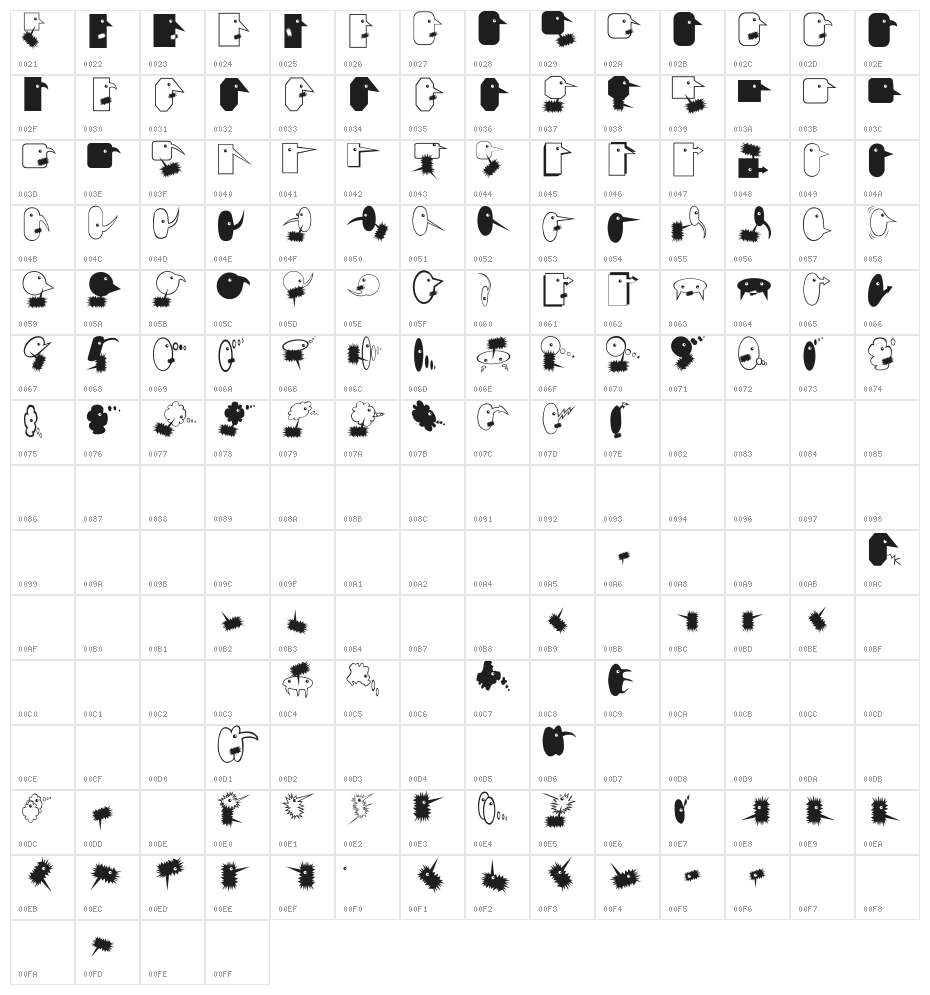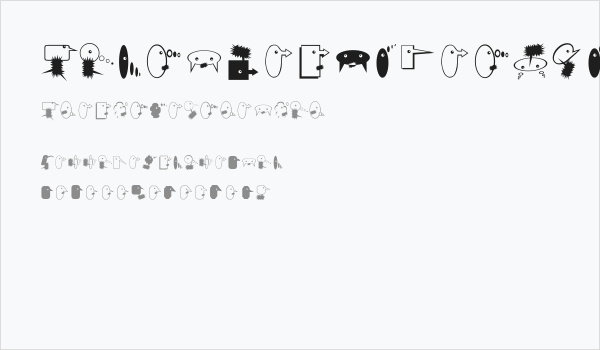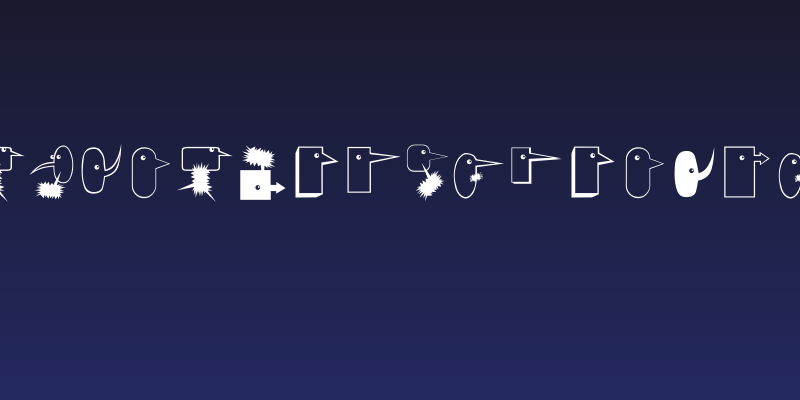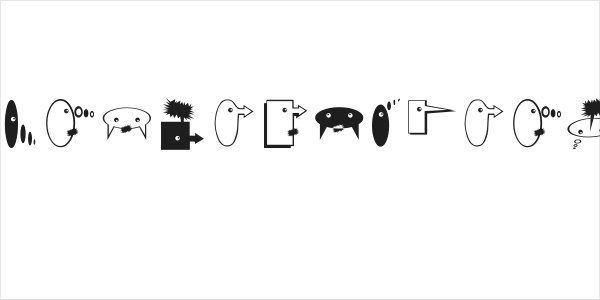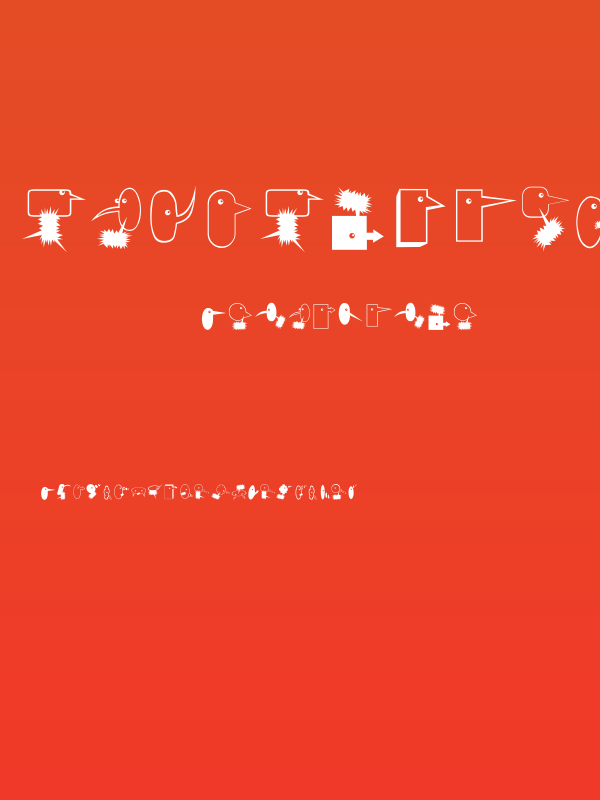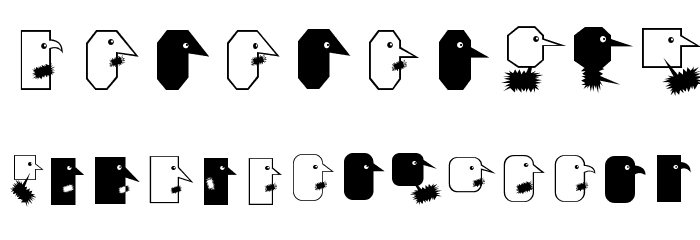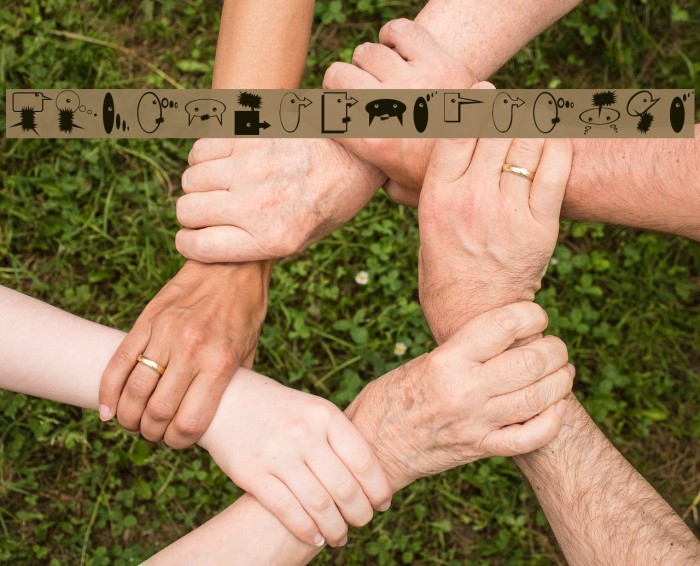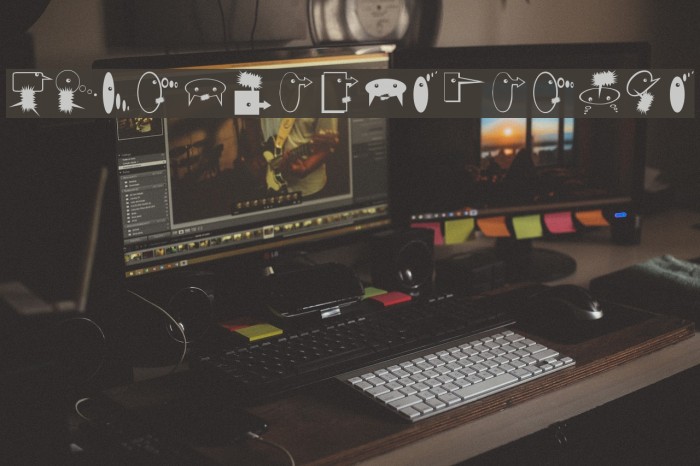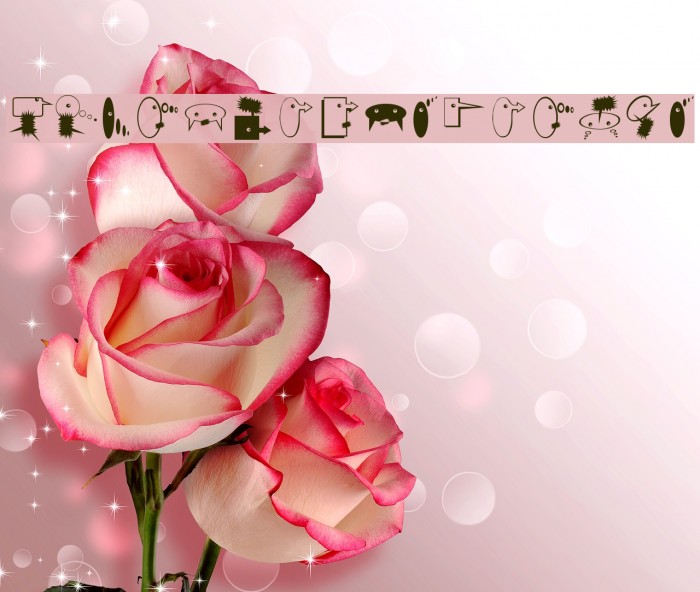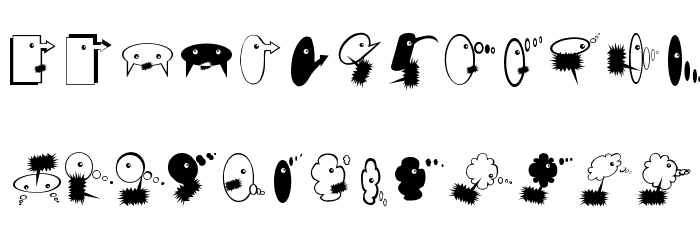
ComicHeadsBeings Font
ComicHeadsBeings Description
This is not a traditional font but rather a collection of whimsical, cartoonish character illustrations. Each character is uniquely designed with exaggerated features, such as large noses, expressive eyes, and quirky shapes. The style is playful and imaginative, resembling doodles or comic strip characters. The characters are depicted in various poses and expressions, adding a dynamic and lively feel to the set. This collection is more suited for creative and artistic projects rather than textual communication.
| Use Case | Illustrations, Artistic projects |
| Proposed Projects | Ideal for comic strips, children's books, creative illustrations, and artistic projects. |